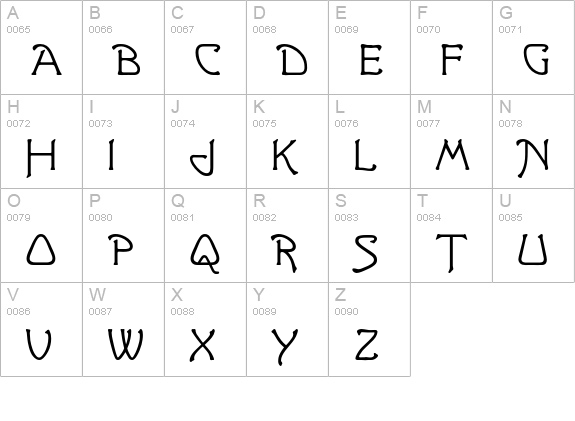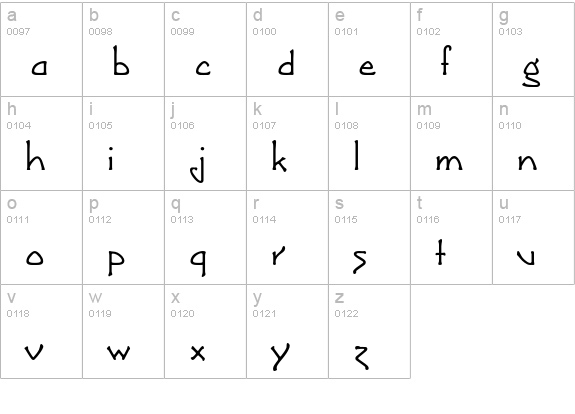
Greeting Monotone Std font is a sleek and modern typeface that exudes sophistication and elegance. With its clean lines and simple yet stylish design, this font is perfect for adding a touch of class to any project. The monotone style adds a sense of consistency and uniformity, making it versatile for various design applications. What sets Greeting Monotone Std font apart is that it is available for free download at FontsMarket.com. This means you can easily access this high-quality font without any cost, making it a valuable resource for designers and creatives looking to elevate their work. Whether you're working on a branding project, website design, or print materials, Greeting Monotone Std font will help you achieve a polished and professional look. Don't miss out on the opportunity to enhance your designs with the timeless appeal of Greeting Monotone Std font. Download it today for free and start creating stunning visuals that leave a lasting impression.